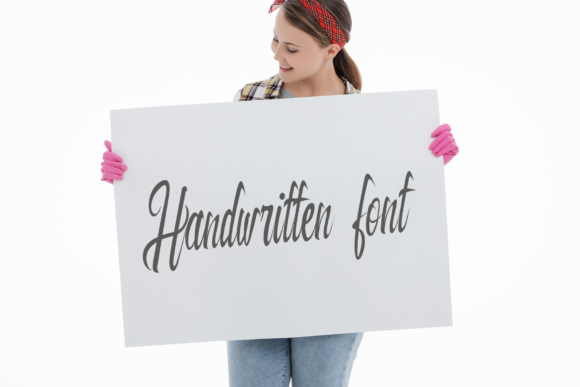
Wishline Omiley Font
db-ku.com - Script & Handwritten -- Wishline Omiley is a free-flowing script font created for packaging products, invitation cards, flyers, mockups, event posters, and anything else that requires high-quality vibes. It has a beautiful and balanced character, that fits well with the large design pool.